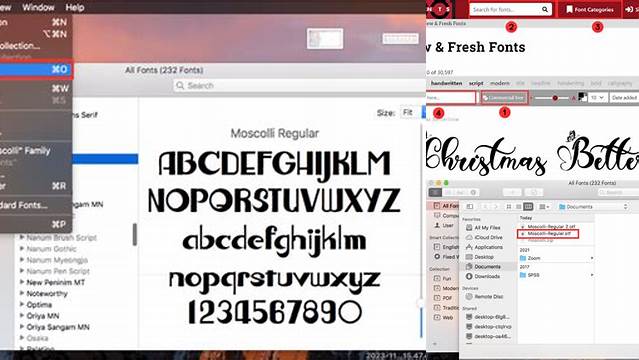
Use Downloaded Fonts In PowerPoint IPad
Hey guys! Ever wondered how to spice up your PowerPoint presentations on your iPad with some cool, custom fonts? You're not alone! While PowerPoint on iPad is super handy, getting your downloaded fonts to work can be a bit tricky. But don't worry, we've got you covered. This guide will walk you through everything you need to know to get those awesome fonts into your presentations. We'll break it down step-by-step, so even if you're not a tech whiz, you'll be rocking custom fonts in no time. Let’s dive in and make your presentations stand out!
1. Understanding Font Compatibility on iPad
Before we jump into the how-to, let’s talk compatibility. Not all fonts play nice with iPads. Understanding font compatibility is the first step in making your PowerPoint presentations visually appealing. PowerPoint on iPad supports TrueType (.ttf) and OpenType (.otf) fonts, which are the most common font formats. However, just because a font is in the correct format doesn't guarantee it will work perfectly. Some fonts might have compatibility issues, so it’s crucial to test them out. Always ensure that the fonts you download are from reputable sources to avoid any security risks. Additionally, check if the font license allows for use on mobile devices, especially for commercial projects. By understanding these nuances, you'll save yourself a lot of headache down the road. Ensuring your fonts are compatible also means that your presentations will look consistent across different devices, which is super important if you're sharing your work with others.
2. Installing Fonts on Your iPad
Okay, so you’ve got your fonts and you're ready to roll. But how do you actually get them onto your iPad? Installing fonts on your iPad might seem daunting, but it's actually quite straightforward once you know the steps. You'll need a font management app, such as iFont or AnyFont, which are available on the App Store. These apps act as intermediaries, allowing you to install custom fonts system-wide on your iPad. First, download and install your chosen font management app. Then, download the font files (.ttf or .otf) to your iPad. You can do this via email, cloud storage (like iCloud Drive or Dropbox), or directly from a website. Once the font files are on your iPad, open them using the font management app. The app will guide you through the installation process, which usually involves installing a configuration profile. This profile grants the app permission to install fonts on your device. After installation, restart PowerPoint (if it's open) to ensure the new fonts appear in the font list. It's a good practice to install fonts one at a time and test them in PowerPoint to avoid any conflicts or issues. This way, you can quickly identify and troubleshoot any problems that arise.
3. Using Font Management Apps
Font management apps are your best friends when it comes to custom fonts on iPad. Using font management apps like iFont, AnyFont, or Font Diner makes the whole process smoother and more organized. These apps not only help you install fonts but also manage them efficiently. Let's break down how to use them. First, download and install your chosen app from the App Store. Once installed, you can import font files (.ttf or .otf) directly into the app. Most font management apps support importing fonts from various sources, including iCloud Drive, Dropbox, Google Drive, and email attachments. After importing, the app will typically preview the font and provide an option to install it. This usually involves installing a configuration profile, which requires your permission. Once the profile is installed, the font should be available system-wide, including in PowerPoint. Font management apps also allow you to uninstall fonts, which is handy for decluttering your font library or troubleshooting issues. They often offer features like font previews, font organization, and even the ability to download fonts directly from within the app. By leveraging these tools, you can easily manage your fonts and keep your PowerPoint presentations looking fresh and unique. Remember to regularly update your font management app to ensure compatibility with the latest iOS version.
4. Importing Fonts into PowerPoint on iPad
Alright, the fonts are on your iPad – now what? Importing fonts into PowerPoint on iPad is the crucial step that brings your custom typography to your presentations. While the fonts are installed system-wide, PowerPoint needs to recognize them to make them available in your presentations. After installing your fonts using a font management app, close and reopen PowerPoint. This refresh ensures that PowerPoint scans for newly installed fonts. Once reopened, create a new presentation or open an existing one. Select the text box you want to modify, and tap on the font selection menu. Your newly installed fonts should appear in the list, alongside the default PowerPoint fonts. If you don’t see your fonts right away, double-check that the font management app has successfully installed them and that the configuration profile is active. Sometimes, a simple restart of your iPad can also help. It's also worth noting that PowerPoint might not display the font name perfectly if it contains special characters or unusual formatting. In such cases, try typing a sample of the font in a text box to confirm it's the correct one. By following these steps, you can seamlessly integrate your custom fonts into PowerPoint, adding a personal and professional touch to your presentations.
5. Troubleshooting Font Issues in PowerPoint
Okay, so sometimes things don’t go exactly as planned. Troubleshooting font issues in PowerPoint is a skill that every presentation pro needs. Let's dive into some common problems and how to fix them. One common issue is that the font doesn't appear in PowerPoint's font list even after you've installed it. First, double-check that the font management app has successfully installed the font and that the configuration profile is active. Restarting your iPad can often resolve this issue by refreshing the system's font cache. If the font still doesn’t show up, ensure that the font format is compatible (.ttf or .otf). Another problem might be that the font appears in the list but displays incorrectly in your presentation. This could be due to font corruption or compatibility issues with PowerPoint. Try reinstalling the font or using a different version of the font file. If you're sharing your presentation with others, ensure they also have the same fonts installed on their devices. Otherwise, PowerPoint will substitute the font with a default one, altering the appearance of your slides. To avoid this, you can embed the fonts in your presentation, though this might increase the file size. If all else fails, try using a different font management app or contacting the font's vendor for support. By systematically troubleshooting these issues, you can keep your presentations looking polished and professional.
6. Best Font Choices for PowerPoint Presentations
Choosing the right font can make or break your presentation. Best font choices for PowerPoint presentations aren't just about aesthetics; they're about readability and impact. A good font enhances your message, while a poor choice can distract your audience and undermine your credibility. For headlines and titles, consider using bold, attention-grabbing fonts like Montserrat, Bebas Neue, or Open Sans Extra Bold. These fonts are modern, clean, and make a strong statement. For body text, readability is key. Opt for classic, legible fonts such as Arial, Calibri, or Lato. These fonts are designed for easy reading, even at smaller sizes. Avoid using overly decorative or script fonts for body text, as they can be difficult to read and tire your audience's eyes. When choosing fonts, also consider the overall tone and style of your presentation. A formal presentation might call for professional fonts like Times New Roman or Garamond, while a more creative presentation could benefit from fonts like Raleway or Roboto. Remember to limit the number of fonts you use in a single presentation to two or three at most. Too many fonts can create a cluttered and unprofessional look. By carefully selecting your fonts, you can create visually appealing and effective presentations that leave a lasting impression.
7. Font Licensing and Usage Rights
Let's get real about font licenses, guys. It's not the most glamorous topic, but font licensing and usage rights are super important if you want to stay out of legal hot water. When you download a font, it's not like buying a song on iTunes – you're usually purchasing a license to use the font, not the font itself. Font licenses dictate how you can use the font, whether it's for personal, commercial, or other specific purposes. Before using any downloaded font in your PowerPoint presentations, especially if they're for business or commercial use, make sure you understand the font license. Some fonts are free for personal use but require a commercial license for business projects. Others might have restrictions on embedding in documents or using in logos. There are several types of font licenses, including desktop licenses, web licenses, and embedding licenses. A desktop license typically allows you to install the font on your computer and use it for creating documents and graphics. A web license allows you to use the font on a website, often through CSS. An embedding license allows you to embed the font in documents like PDFs or PowerPoint presentations. If you're unsure about the terms of a font license, it's always best to check with the font foundry or the website where you downloaded the font. Using a font without the proper license can lead to legal issues, including fines and lawsuits. So, do your homework and make sure you're using fonts legally!
8. Finding Free Fonts for PowerPoint
Who doesn’t love free stuff? Finding free fonts for PowerPoint can seriously level up your presentation game without costing you a dime. But, you gotta be smart about where you download them from. There are tons of websites out there offering free fonts, but not all of them are created equal. Some sites might offer low-quality fonts or even worse, bundle malware with the font files. Always stick to reputable sources like Google Fonts, Font Squirrel, and DaFont. Google Fonts is a fantastic resource because it offers a huge library of open-source fonts that are free for both personal and commercial use. Font Squirrel is another great option, offering a curated selection of high-quality free fonts. DaFont has a massive collection, but it's crucial to check the license for each font, as some are only free for personal use. When browsing for free fonts, consider the readability and versatility of the font. Look for fonts that are clear and easy to read, even at smaller sizes. Also, think about the overall tone and style of your presentation. A professional presentation might call for a different font than a creative one. Don't be afraid to experiment with different fonts, but always prioritize readability and consistency. Remember to download fonts in the correct format (.ttf or .otf) and use a font management app to install them on your iPad. By using free fonts wisely, you can create stunning PowerPoint presentations without breaking the bank.
9. Embedding Fonts in PowerPoint (for Compatibility)
Alright, let's talk about making sure your presentation looks awesome no matter where it's opened. Embedding fonts in PowerPoint (for compatibility) is a pro move that ensures your carefully chosen fonts display correctly, even if the person viewing your presentation doesn't have those fonts installed on their device. When you embed fonts, you're essentially including the font files within the PowerPoint file itself. This way, PowerPoint can use those fonts regardless of what's installed on the viewer's system. To embed fonts in PowerPoint on your iPad, unfortunately, there isn't a direct built-in feature like on the desktop version. However, there are workarounds. One approach is to create your presentation with embedded fonts on a desktop version of PowerPoint (Windows or macOS) and then transfer the file to your iPad. The fonts will remain embedded, and your presentation will display correctly. To embed fonts on the desktop version, go to File > Options > Save and check the box that says “Embed fonts in the file.” You can choose to embed only the characters used in the presentation (which reduces file size) or embed all characters (which ensures full editing capabilities). Another option is to convert your presentation to a PDF. When you create a PDF, the fonts are automatically embedded, ensuring consistent display across different devices. While this prevents further editing in PowerPoint, it's a reliable way to share your presentation with the intended look and feel. By embedding fonts, you can avoid those awkward moments when your presentation displays in a generic font, ruining your carefully crafted design.
10. Creating Custom Font Combinations
Want to really make your presentations pop? Creating custom font combinations is where the magic happens. Think of your fonts like ingredients in a recipe – the right mix can create something amazing! But, just like with cooking, it's easy to mess things up if you don't know what you're doing. The key to a killer font combo is contrast. You want to pair fonts that complement each other but also have enough visual difference to create interest. A classic approach is to pair a bold, attention-grabbing font for headings with a clean, readable font for body text. For example, you could use Montserrat for titles and Open Sans for paragraphs. This creates a clear visual hierarchy and makes your content easy to digest. Another technique is to combine a serif font (like Times New Roman or Garamond) with a sans-serif font (like Arial or Helvetica). Serif fonts have those little